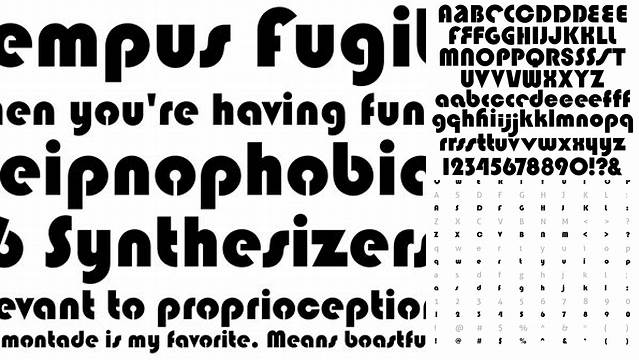
Hey guys! Are you on the hunt for a font that’s both groovy and versatile? Well, let me introduce you to Blippo Pro, a typeface that has stood the test of time and remains a favorite among designers and typographers. In this comprehensive guide, we’ll dive deep into the world of Blippo Pro, covering everything from its origins and characteristics to where you can find it for free and how to use it effectively in your projects. So, buckle up and let's get started!
What is Blippo Pro Font?
When we talk about Blippo Pro font, we're not just talking about any old typeface; we're talking about a font with a rich history and a distinctive personality. Designed in 1969 by the legendary German type designer, Professor Karlgeorg Hoefer, Blippo Pro is a bold, display typeface that exudes a sense of playfulness and retro charm. Its rounded, almost cartoonish letterforms make it instantly recognizable and perfect for projects that need a touch of fun and whimsy. Imagine those groovy 1970s vibes – that's Blippo Pro in a nutshell. This font is not just a set of characters; it's a statement. Its unique blend of curves and boldness creates a visual impact that's hard to ignore, making it a go-to choice for designers looking to add a distinctive flair to their work. The beauty of Blippo Pro lies in its ability to stand out while maintaining readability, a delicate balance that many fonts struggle to achieve. Whether it's used for headlines, posters, or branding, Blippo Pro has a knack for grabbing attention and leaving a lasting impression. Its versatility is another key factor in its enduring popularity. While it’s often associated with retro designs, Blippo Pro can also be surprisingly effective in modern contexts, adding a touch of vintage cool to contemporary projects. The font's character is further enhanced by its subtle quirks and irregularities, which give it a human touch that feels authentic and engaging. It’s this combination of bold design and subtle detail that makes Blippo Pro a true classic in the world of typography.
Key Characteristics of Blippo Pro
Let's break down the key characteristics of Blippo Pro that make it so unique and beloved. First off, the most striking feature is its boldness. This font isn't shy; it commands attention with its thick strokes and substantial presence. The rounded letterforms are another defining trait, giving Blippo Pro a soft, friendly appearance that contrasts nicely with its bold weight. This combination of boldness and roundness is what gives the font its distinctive personality, making it both playful and impactful. Think of it as the typographic equivalent of a friendly giant – strong and imposing, yet approachable and inviting. Another important characteristic is its display nature. Blippo Pro is primarily designed for headlines, posters, and other large-format applications where its bold personality can truly shine. While it can be used in smaller sizes, it's most effective when used sparingly and strategically, allowing its unique features to stand out without overwhelming the text. The font also has a slightly condensed appearance, meaning the letters are a bit narrower than in some other typefaces. This adds to its visual impact and makes it a great choice for situations where space is limited but you still want to make a statement. Beyond its individual features, the overall feel of Blippo Pro is one of retro charm. It evokes the spirit of the 1970s with its groovy, slightly psychedelic vibe. This makes it a natural choice for projects that aim to capture a vintage aesthetic, but it can also be used in more modern designs to add a touch of unexpected flair. The key is to understand its personality and use it in a way that complements the overall design.
How to Use Blippo Pro Effectively in Your Designs
Now that you're equipped to find Blippo Pro or a suitable alternative, let's talk about how to use it effectively in your designs. This font, with its bold personality, isn't a wallflower; it's a statement-maker. So, the key is to use it strategically and with purpose. Think of Blippo Pro as the lead singer in a band – it needs to be supported by the other elements in your design to really shine. One of the best ways to use Blippo Pro is in headlines and titles. Its bold weight and rounded letterforms grab attention and create a strong visual impact. Imagine a poster for a retro-themed event, a website header with a playful vibe, or a logo that needs to stand out – Blippo Pro is a fantastic choice for these applications. Just remember to keep the text concise and impactful; too much Blippo Pro can be overwhelming. Another effective use case for Blippo Pro is in branding. If your brand has a fun, energetic, or retro personality, this font can be a great way to communicate that visually. Use it in your logo, website design, and marketing materials to create a consistent and memorable brand identity. However, be mindful of your target audience and the overall tone you want to convey. Blippo Pro might not be the best choice for a serious, corporate brand, but it could be perfect for a creative agency or a trendy startup. When it comes to pairing Blippo Pro with other fonts, contrast is your friend. Because Blippo Pro is so bold and distinctive, it works well with simpler, more neutral typefaces. Think of pairing it with a clean sans-serif font for body text or a classic serif font for a touch of elegance. The goal is to create a visual hierarchy that allows Blippo Pro to stand out without clashing with the other elements in your design. Finally, consider the context in which you're using Blippo Pro. Is it for a print project or a digital design? What is the overall color palette and visual style? Blippo Pro can be surprisingly versatile, but it needs to be used in a way that complements the overall design aesthetic. Experiment with different sizes, weights, and colors to find the perfect balance. With a little creativity and attention to detail, you can harness the power of Blippo Pro to create designs that are both eye-catching and effective.
Font Pairing Ideas for Blippo Pro
Let's dive deeper into the art of font pairing with Blippo Pro, because choosing the right companion fonts can make or break your design. As we've mentioned, contrast is key here. Blippo Pro is a bold statement, so you'll want to pair it with fonts that complement its personality without competing for attention. Think of it like choosing the right supporting actors for a movie – they need to be talented and engaging, but they shouldn't overshadow the star. One classic pairing for Blippo Pro is with a clean sans-serif font like Helvetica, Arial, or Open Sans. These fonts are neutral and versatile, providing a solid foundation for your design without distracting from Blippo Pro's boldness. The contrast between the rounded letterforms of Blippo Pro and the clean lines of the sans-serif font creates a visually appealing balance. This combination is great for websites, posters, and other applications where readability is important. Another option is to pair Blippo Pro with a classic serif font like Times New Roman or Garamond. This combination can add a touch of elegance and sophistication to your design. The serif font provides a counterpoint to Blippo Pro's playfulness, creating a dynamic and visually interesting contrast. This pairing is well-suited for branding projects, editorial design, and any application where you want to convey a sense of both fun and refinement. When choosing a serif font to pair with Blippo Pro, look for one that has a relatively clean and simple design. Overly ornate or decorative serif fonts can clash with Blippo Pro's bold personality. Beyond these classic pairings, there are plenty of other options to explore. Consider experimenting with geometric sans-serif fonts like Futura or Montserrat. These fonts have a modern and minimalist feel that can complement Blippo Pro's retro vibe. Or, for a more playful look, try pairing Blippo Pro with a script font – but be careful! Script fonts can be tricky to use, and it's important to choose one that doesn't compete with Blippo Pro's boldness. A simple, elegant script font can add a touch of personality and charm to your design. Ultimately, the best way to find the perfect font pairing is to experiment and see what works best for your project. Don't be afraid to try different combinations and trust your eye. With a little practice, you'll develop a sense for which fonts complement Blippo Pro and create a visually harmonious design.
Conclusion: Embrace the Groovy Vibes of Blippo Pro
So, there you have it – a deep dive into the world of Blippo Pro font! We've explored its origins, its unique characteristics, where to find free alternatives, and how to use it effectively in your designs. Whether you're creating a retro-themed poster, designing a playful logo, or just want to add a touch of groovy vibes to your project, Blippo Pro is a fantastic choice. Remember, while the original Blippo Pro is a commercial font, there are plenty of alternatives and similar typefaces out there that you can use for free. Just be sure to check the licensing terms and respect the rights of the font designers. And when it comes to using Blippo Pro in your designs, think strategically. This font is a statement-maker, so use it in a way that complements the overall aesthetic of your project. Pair it with contrasting fonts, use it sparingly in headlines and titles, and let its bold personality shine. Ultimately, the key to using Blippo Pro effectively is to have fun and experiment. Don't be afraid to try new things and push the boundaries of your design. With a little creativity and a dash of retro flair, you can create designs that are both eye-catching and memorable. So, go forth and embrace the groovy vibes of Blippo Pro – your designs will thank you for it! Happy designing, guys!